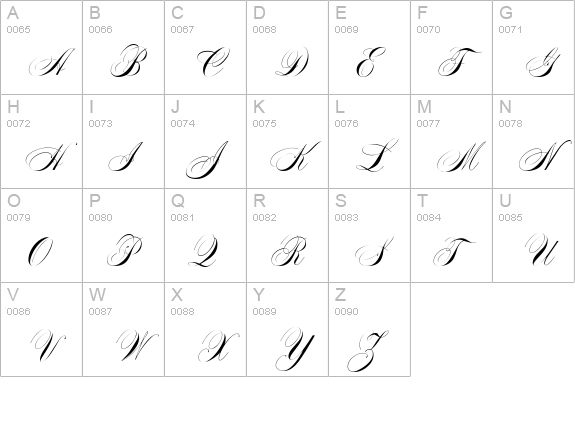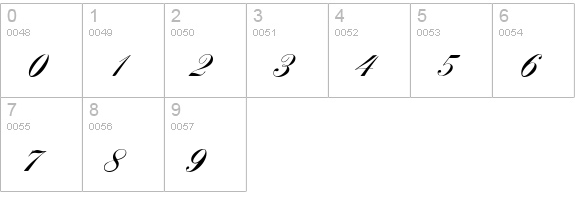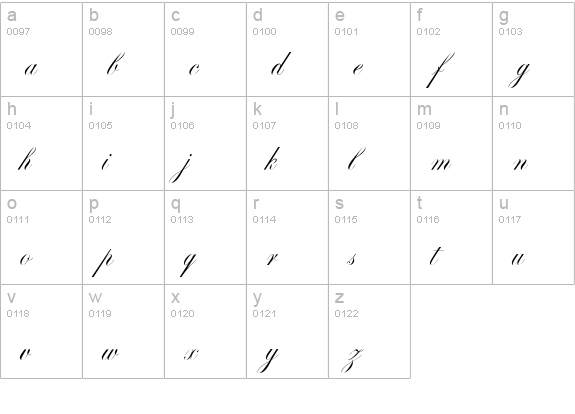
Markiz de Sad script Font Details
Introducing the Markiz de Sad script font, an exquisite and artistic typeface that exudes elegance and sophistication. This mesmerizing font is perfect for those seeking to add a touch of class and grace to their designs. With its delicate and flowing strokes, Markiz de Sad script font captures the essence of timeless beauty. Each letter is meticulously crafted with intricate details, creating a harmonious and visually captivating aesthetic. Whether used for invitations, logos, or social media graphics, this font will effortlessly elevate any project to new heights. One of the most remarkable aspects of Markiz de Sad script font is that it is freely available to download at FontsMarket.com. This means that designers and enthusiasts alike can enjoy the beauty of this font without any limitations. With just a few clicks, you can access this stunning typeface and start creating breathtaking designs that leave a lasting impression. Markiz de Sad script font is designed with versatility in mind. It offers a wide range of ligatures and alternates, allowing you to customize and personalize your designs to suit your unique style. Whether you prefer a more elegant and refined look or a playful and whimsical vibe, this font has got you covered. To enhance your creative process, Markiz de Sad script font also includes a comprehensive set of international characters, making it suitable for multilingual projects. From English to French, Spanish to German, this font ensures that your message is conveyed flawlessly across various languages and cultures. In conclusion, Markiz de Sad script font is a stunning and free typeface that will elevate your designs to new levels of beauty and sophistication. With its intricate details, versatility, and accessibility, this font is a must-have for any designer or creative enthusiast. Download it now at FontsMarket.com and let your creativity soar!